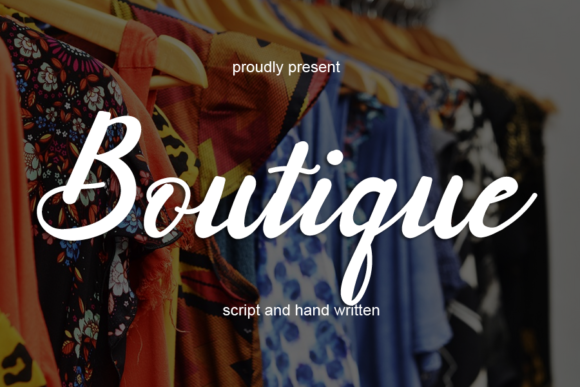
The Perfect Blend of Elegance and Creativity
Imagine yourself pouring over design ideas, searching for the perfect combination of style and sophistication. You’ve finally found the perfect font – one that exudes elegance and poise, transporting your designs to a world of refined beauty. This is the moment when the magic of design happens, and that’s exactly what the Boutique Font offers.
As a flowing handwritten font, Boutique Font adds a touch of warmth and personality to any project. Whether it’s a wedding invitation, a boutique advertisement, or a personal logo, this font is sure to make a lasting impression. With its distinct and timeless style, designers can create spectacular designs that leave a lasting impact.
For designers, the Boutique Font is a valuable addition to their toolkit. Its versatility and sophistication make it perfect for a wide range of projects, from fashion to home decor. With this font, designers can elevate their creations to new heights and leave a lasting mark on the world of design.
Boutique Font Key Features
- Font Family: Boutique Font offers a variety of stylish and elegant font styles, including regular, italic, bold, and bold italic.
- Unique Characteristics: Boutique Font features intricate details, ornate flourishes, and luxurious textures that set it apart from other font styles.
Boutique Font Review
Overall, I was excited to dive into the world of Boutique Font. Here’s what I thought:
- Unique Characters**: The font boasts some truly distinctive characters that will set your design apart from the crowd.
- Comprehensive Character Set**: The font includes a wide range of characters, from standard letters to special symbols and glyphs.
- Lack of Flexibility**: The font’s limited flexibility can make it difficult to customize for certain design projects.
While Boutique Font has its strengths, the limitations and compatibility issues hold it back from being a top-tier font. That being said, it’s still a great choice for designers who want to add a touch of elegance and sophistication to their projects.
Tips for Getting the Most Out of Boutique Font
For best results, use Boutique Font in combination with high-quality graphics and a clear design concept. Experiment with different font sizes and styles to create a unique visual identity.
Boutique Font is ideal for creative projects, such as wedding invitations, branding materials, and advertising campaigns. It adds a touch of sophistication and elegance to any design.